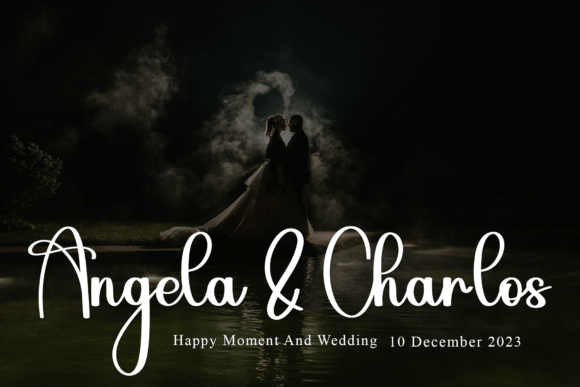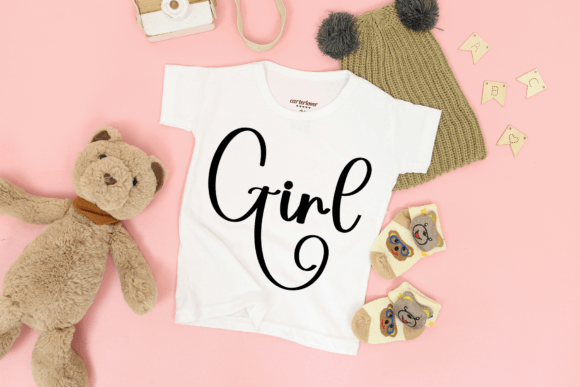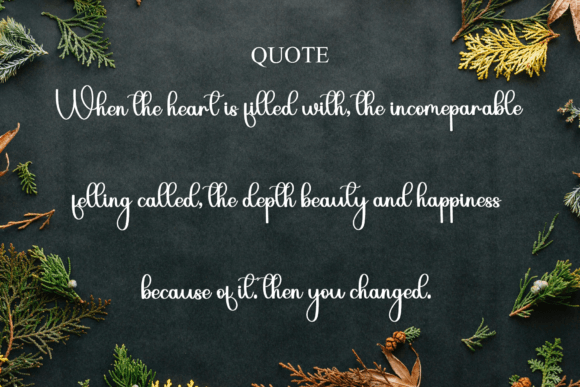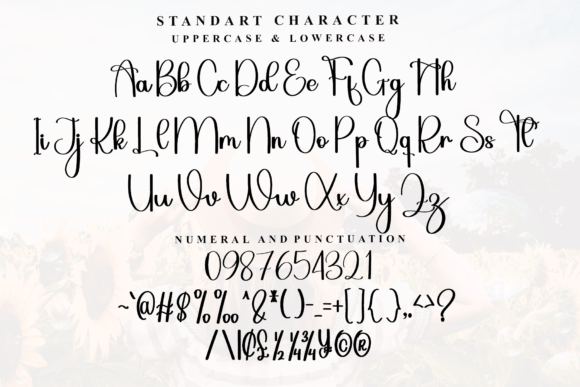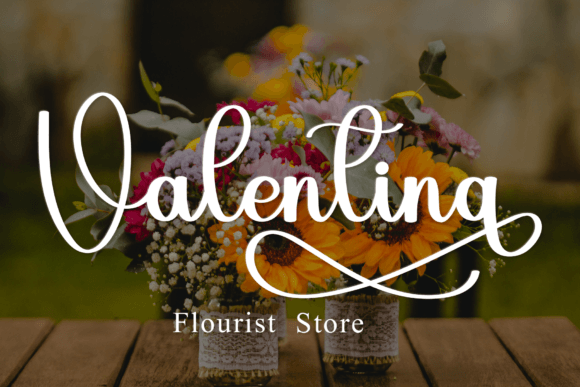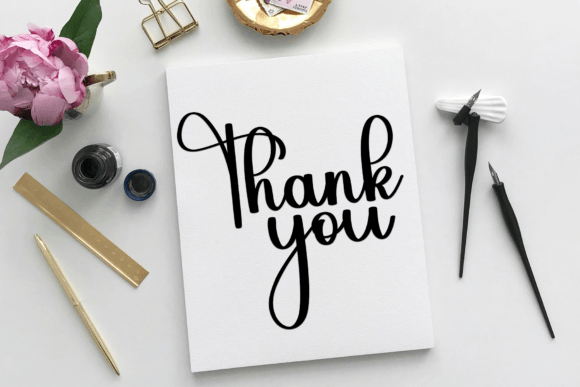
Introducing Grandma Font: Elevate Your Designs with Elegance and Sophistication
Are you a designer or crafter looking for a font that exudes class, elegance, and modernity? Look no further than Grandma Font, a beautiful and refined handwritten font that’s perfect for a wide range of creative projects. With its sophisticated and stylish aesthetic, Grandma Font is sure to elevate your designs and leave a lasting impression.
A Font that Exudes Elegance and Sophistication
Grandma Font boasts a classy, elegant, and modern look that’s perfect for designs that require a touch of sophistication. Its refined handwritten style is reminiscent of traditional calligraphy, yet its modern twist makes it perfect for contemporary designs. Whether you’re creating logos, branding materials, invitations, stationery, wedding designs, or social media posts, Grandma Font is the perfect choice.
One of the best things about Grandma Font is its versatility. Its elegant and refined style makes it suitable for a wide range of creative projects, including:
- Logos and branding: Create a lasting impression with a custom logo that exudes elegance and sophistication.
- Invitations and stationery: Add a touch of class to your invitations, greeting cards, and stationery.
- Wedding designs: Make your wedding designs truly unforgettable with Grandma Font’s elegant and refined style.
- Social media posts: Elevate your social media posts with a font that’s sure to grab attention.
Why Choose Grandma Font?
So why choose Grandma Font over other fonts? Here are just a few reasons:
- Unique and elegant style: Grandma Font’s refined handwritten style is unlike any other font on the market.
- Versatility: The font is suitable for a wide range of creative projects, from logos and branding to social media posts.
- High-quality: The font is designed with high-quality and clarity in mind, ensuring that your designs look professional and polished.
Tips for Using Grandma Font
Here are a few tips for using Grandma Font in your designs:
- Experiment with different sizes and colors to find the perfect combination for your design.
- Use the font’s glyphs and ligatures to add a personal touch to your designs.
- Pair Grandma Font with other fonts to create a unique and custom typography.
- Don’t be afraid to get creative and try new things – Grandma Font is a versatile font that’s perfect for experimenting with different design styles.